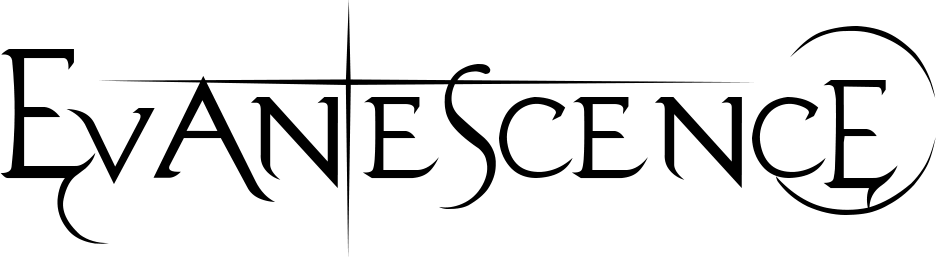
Evanescent Font
Designed byAeryn
Save your designs from becoming nothing and bring them to life with this breathtaking antique font. Elegantly, it has a certain lightness and stunning sweeping characters. Wanna make your fan art such as posters or song covers more faithful to your favorite rock band?